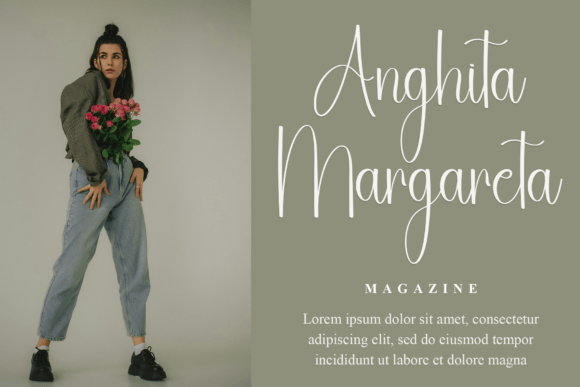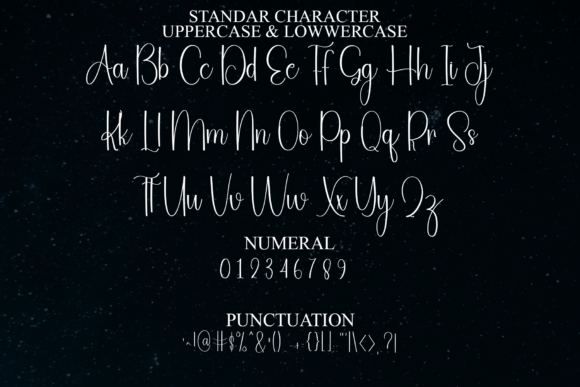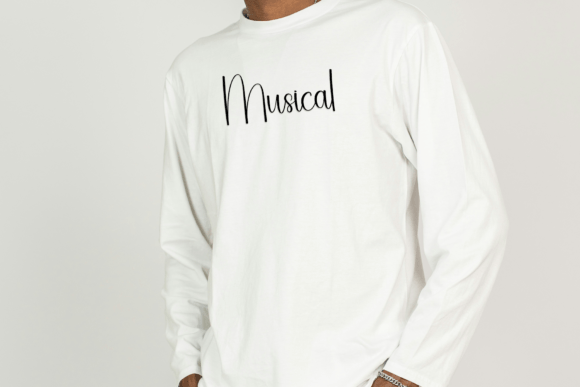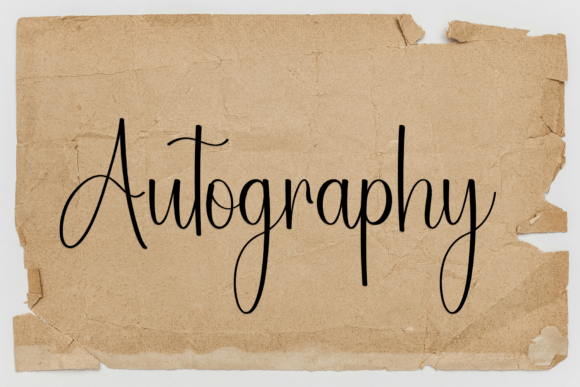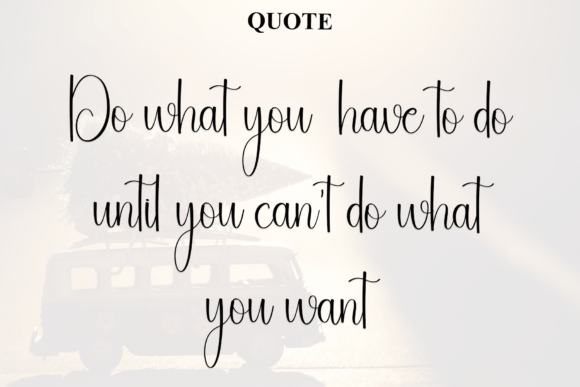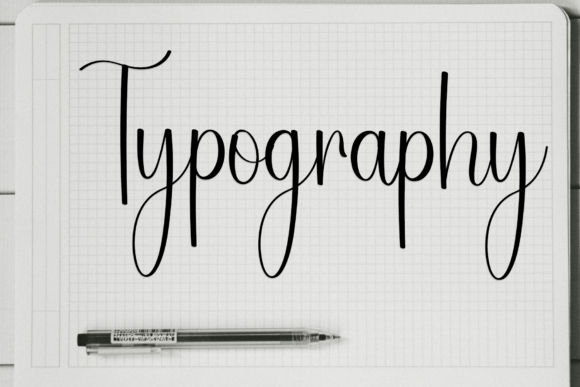
Introducing Beauty Calligraphy Font: The Perfect Blend of Warmth and Whimsy
Are you a designer, crafter, or DIY enthusiast looking for a font that can add a personal touch to your projects? Look no further than Beauty Calligraphy Font, a casual script font that exudes warmth and friendliness. With its rounded, playful strokes, this charming font is perfect for creating inviting and approachable designs that capture the essence of handmade and personalized creations.
The Characteristics of Beauty Calligraphy Font
Beauty Calligraphy Font is a unique and delightful addition to any design project. Its key characteristics include:
- Rounded and Playful Strokes: The font features smooth, rounded strokes that give it a relaxed and casual feel. This makes it perfect for designs that require a friendly and approachable tone.
- Hand-Drawn Aesthetic: The font has a charming, hand-drawn look that adds a whimsical touch to any design. This aesthetic makes it ideal for personal projects, invitations, and social media graphics.
- Warm and Inviting: The font exudes warmth and friendliness, making it perfect for designs that require a personal and inviting tone.
Uses of Beauty Calligraphy Font
Beauty Calligraphy Font is a versatile font that can be used in a variety of design projects, including:
- Personal Projects: Use the font to create personalized gifts, such as handmade cards, gift tags, and invitations.
- Invitations: The font is perfect for creating wedding invitations, birthday party invitations, and other social event invitations that require a personal touch.
- Social Media Graphics: Use the font to create engaging social media graphics, such as quotes, posters, and flyers, that require a friendly and approachable tone.
- Crafting and DIY Projects: The font is ideal for crafting and DIY projects, such as scrapbooking, journaling, and handmade crafts.
Benefits of Using Beauty Calligraphy Font
Using Beauty Calligraphy Font in your design projects offers several benefits, including:
- Unique and Eye-Catching: The font’s unique and hand-drawn aesthetic makes it stand out from other fonts, adding a touch of personality to your designs.
- Easy to Read: The font is easy to read, even in smaller sizes, making it perfect for designs that require a lot of text.
- Versatile: The font can be used in a variety of design projects, from personal projects to commercial designs.
Tips for Using Beauty Calligraphy Font
Here are some tips for using Beauty Calligraphy Font in your design projects:
- Pair with Other Fonts: Pair the font with other fonts to create a unique and visually appealing design.
- Experiment with Colors: Experiment with different colors to find the perfect combination that complements the font.
- Use in Combination with Images: Use the font in combination with images to create a visually appealing design.
Beauty Calligraphy Font is a charming and versatile font that is perfect for designers, crafters, and DIY enthusiasts looking to add a personal touch to their projects. With its rounded, playful strokes and hand-drawn aesthetic, this font exudes warmth and friendliness, making it ideal for personal projects, invitations, and social media graphics. Whether you’re creating handmade cards, gift tags, or social media graphics, Beauty Calligraphy Font is the perfect choice.